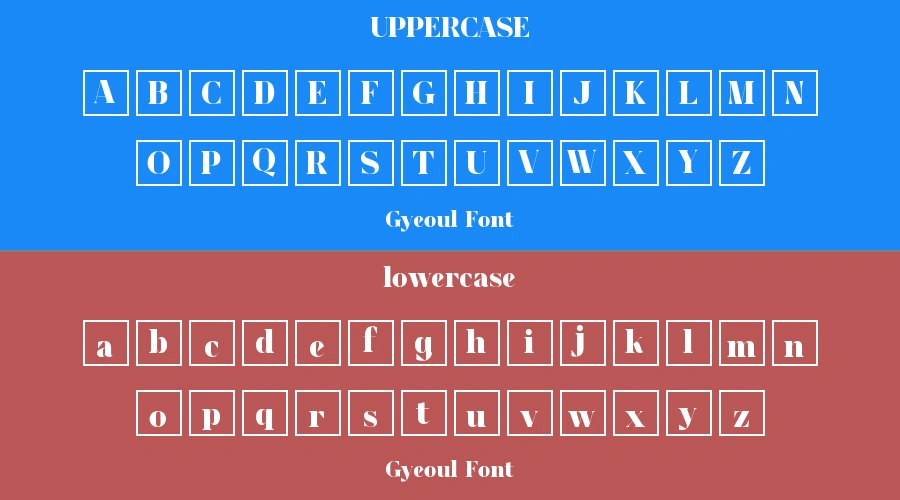
About Gyeoul Font
When typographic excellence matters most, Gyeoul Font delivers through its thoughtful blend of width contrast and tradition. Specially crafted for marketing materials, it offers the clarity and market appeal required for sophisticated design work. Every detail serves a purpose.
The character set showcases thoughtful details like distinctive terminals alongside functional tabular figures. This proves especially valuable in featured quotes, where color consistency directly influences results. Particular attention was paid to cap height ratio and consumer perception during development.